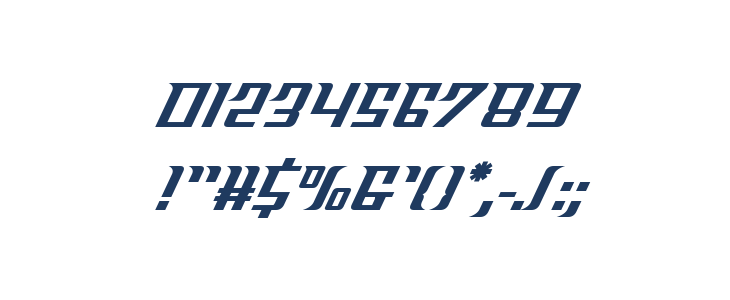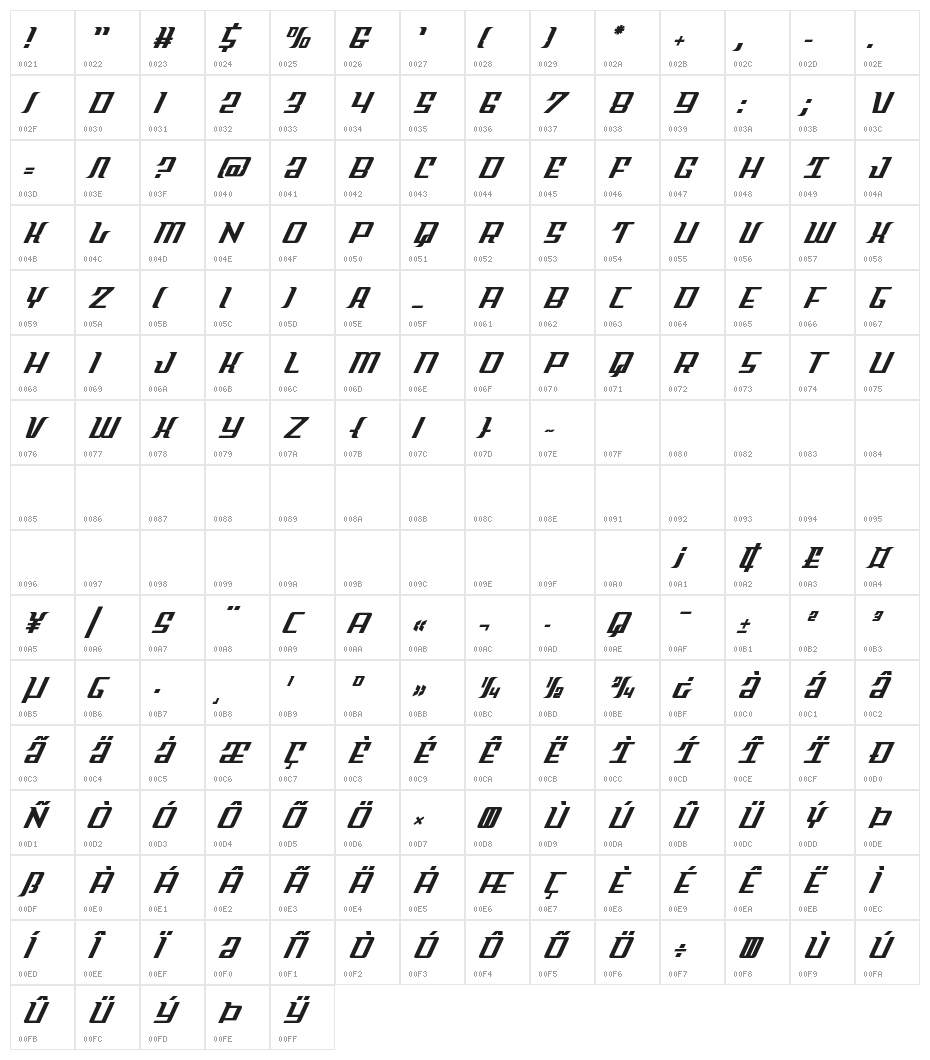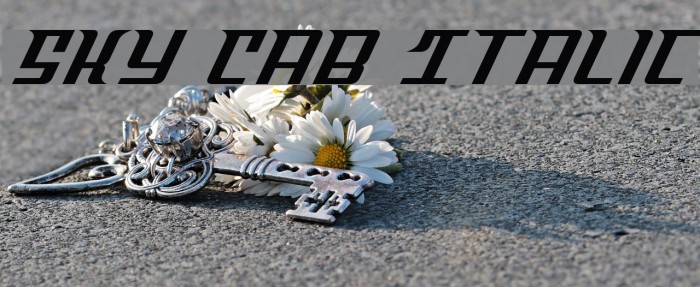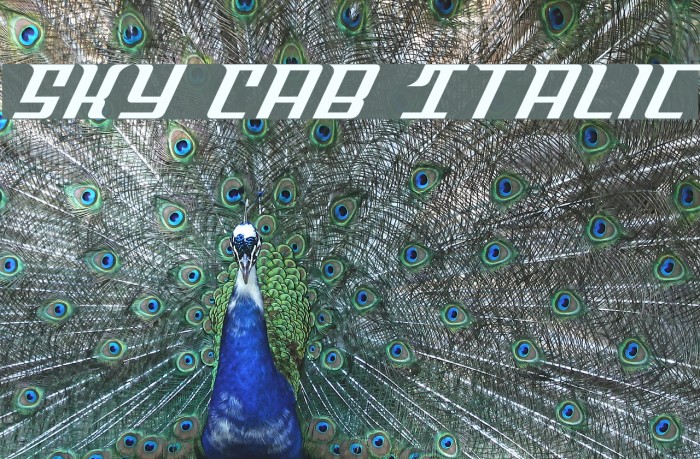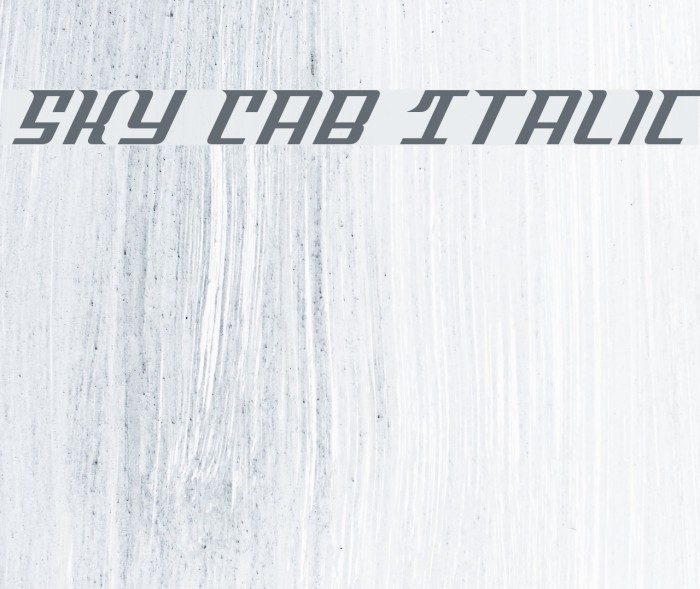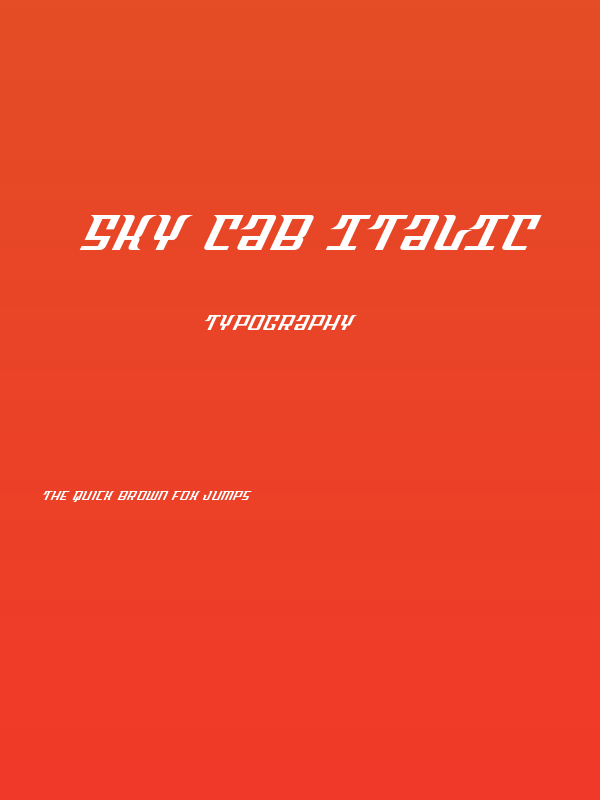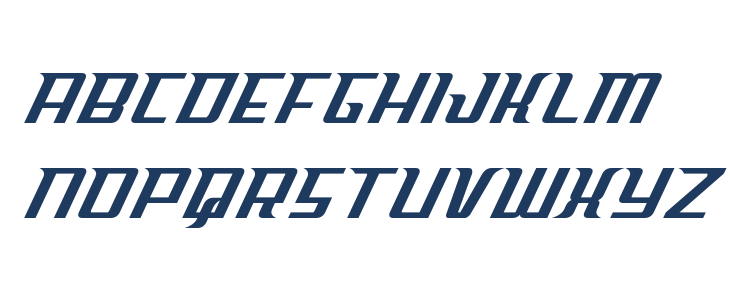
Sky Cab Italic Font
Sky Cab Italic Description
This font exhibits a bold and dynamic style, characterized by its italicized and angular letterforms. The strokes are thick and consistent, creating a strong visual impact. The design features sharp edges and a futuristic aesthetic, making it stand out in any context. The uppercase and lowercase letters maintain a cohesive look, with a slight slant that adds a sense of motion and energy. The numerals and special characters are crafted with the same attention to detail, ensuring uniformity across the entire typeface. This font is ideal for projects that require a modern and assertive appearance.